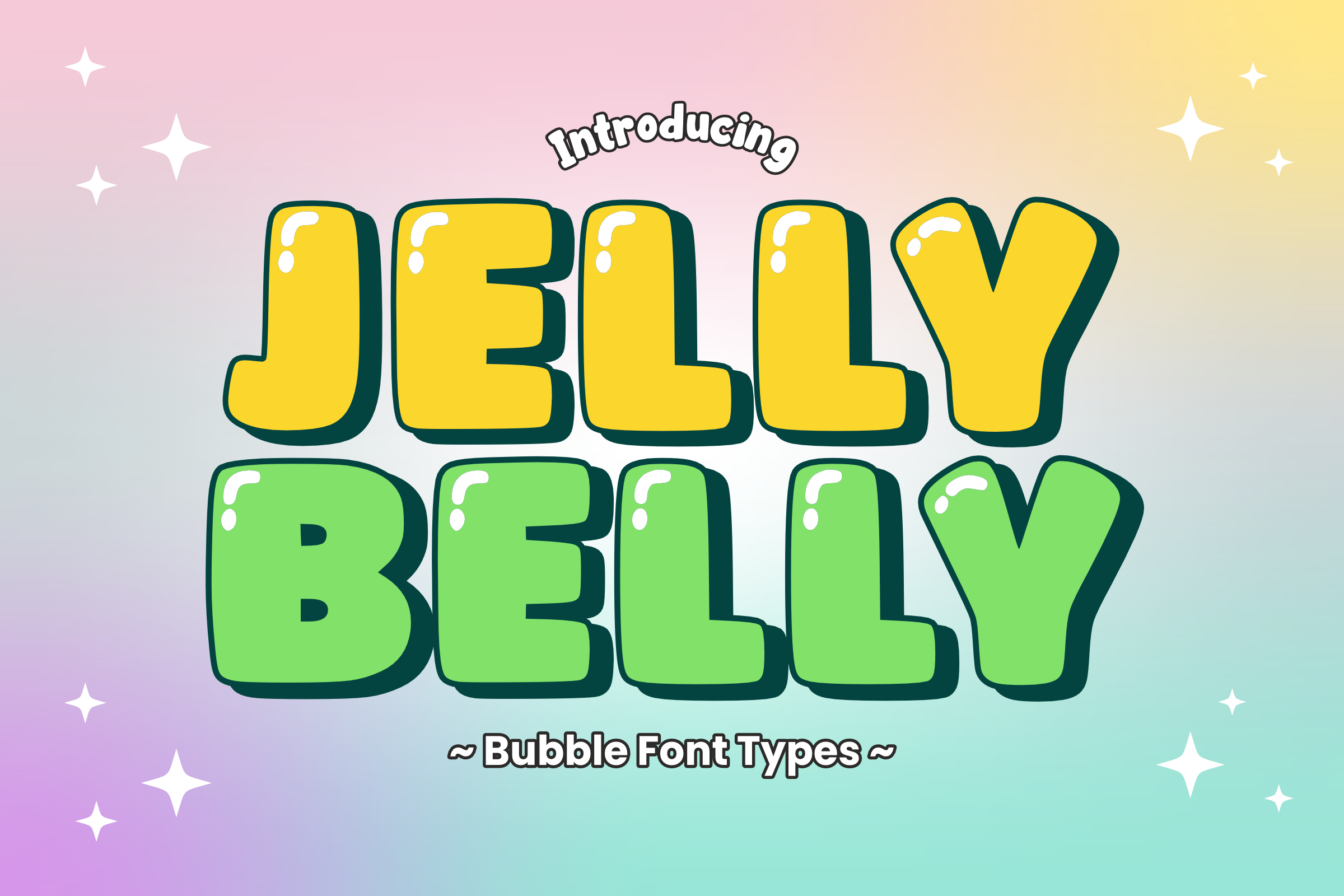
Jelly Belly - Playful Bubble Font
Give your designs a juicy, glossy, and joyful pop with Jelly Belly! This ultra-chunky bubble display font features plump, rounded letterforms complete with cute shine highlights and a clean drop shadow. It’s the ultimate choice for creating eye-catching stickers, cheerful kids' merchandise, and playful branding that feels friendly and full of fun.
All-Caps Character Set (Chunky, pillowy uppercase letters with glossy shine details)
Numbers & Simple Punctuation (Essential, clean symbols included)